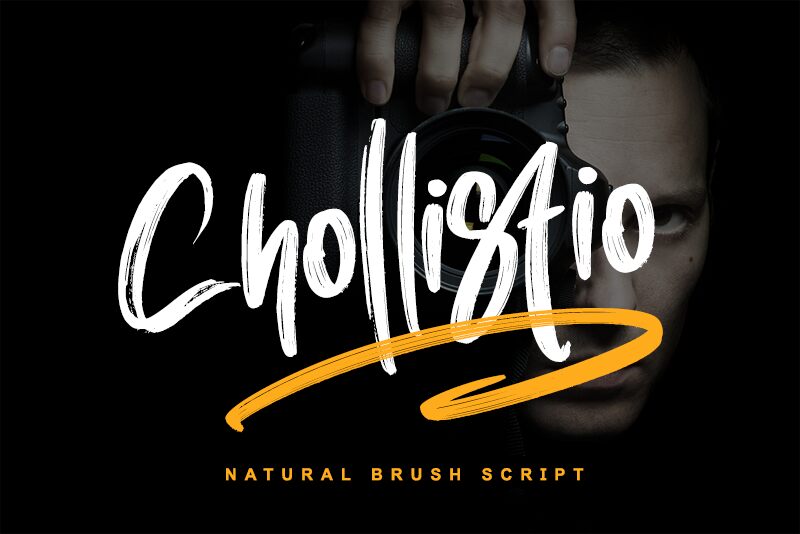
Chollistio is a free brush font designed by Letterara, exuding an energetic and modern style with a hand-drawn appeal. This expressive font presents a casual elegance and spontaneous feel, making it perfect for creative projects with an artistic flair. Its contemporary design caters to versatile applications, allowing for seamless integration into various design contexts.
The Chollistio font lends itself well to branding, posters, packaging, and more. Additional potential use cases include stationery, social media graphics, advertising, merchandise, magazines, book covers, apparel, invitations, and business cards. Consider mixing this font with other complementary fonts to create impressive pairings.